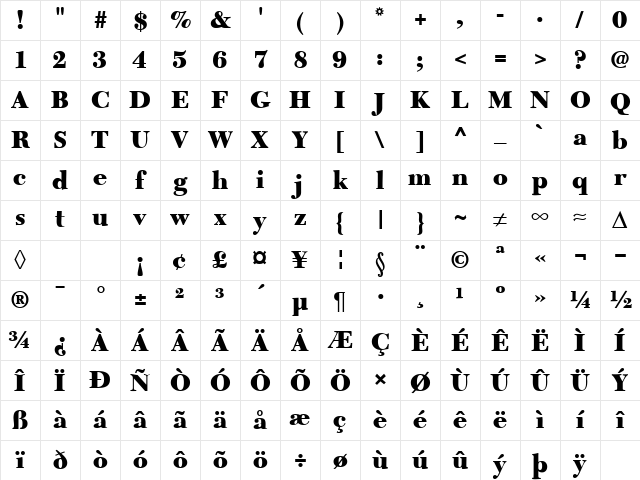
CalendarNovaBlack Regular
Design Context for CalendarNovaBlack
CalendarNovaBlack is a composed and adaptable typeface that performs quietly and consistently across a wide range of design contexts.
Pro Tip: Use CalendarNovaBlack in both headline and body roles to test its range before committing to a single application.